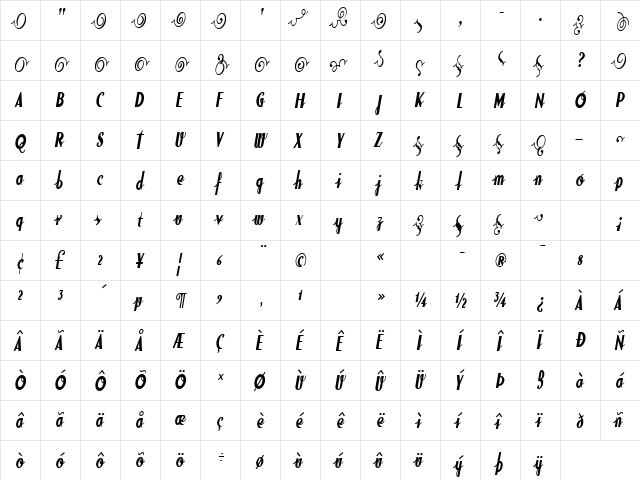
SodaScriptBoldExtras Bold
Design Context for SodaScriptBoldExtras Typeface
SodaScriptBoldExtras brings a calligraphic fluidity to the page — its connecting strokes and expressive curves give it an unmistakably human quality. The heavy weight commands attention and anchors typographic hierarchies.
Font Pairing: Combine SodaScriptBoldExtras with a simple geometric sans for maximum contrast — the tension between flowing curves and clean structure is a classic typographic pairing.
Pro Tip: Use SodaScriptBoldExtras for short runs of text — names, titles, or taglines. Extended body copy in script faces tires the eye quickly.